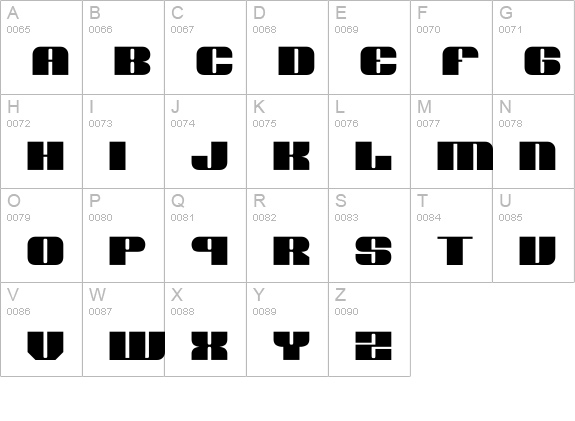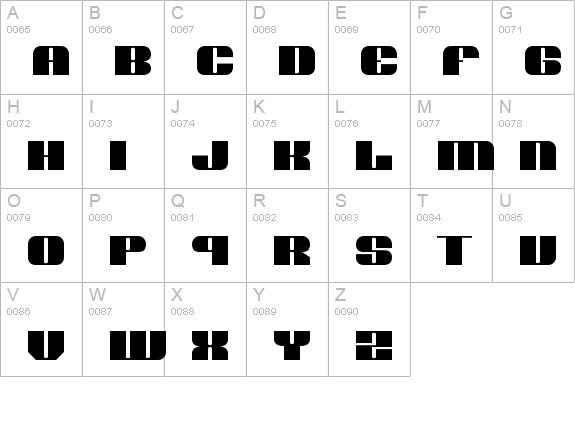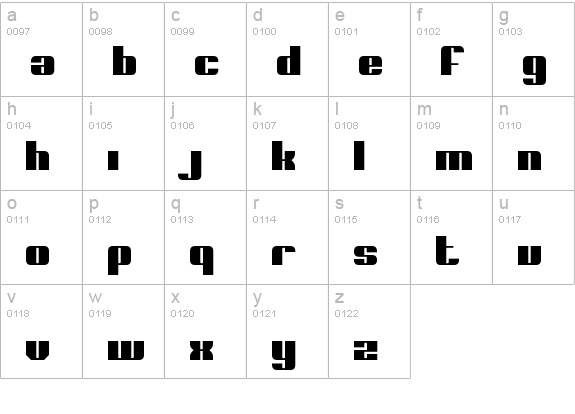
Nolo Contendre font is a modern and stylish typeface that effortlessly blends elegance with simplicity. Its clean lines and subtle curves give it a sophisticated appearance that is perfect for a wide range of design projects. Whether you're creating a professional presentation or designing eye-catching marketing materials, Nolo Contendre font will add a touch of class to your work. This versatile font is available for free download at FontsMarket.com, making it easily accessible to designers and creatives looking to elevate their projects. With its timeless aesthetic and easy readability, Nolo Contendre font is sure to become a go-to choice for all your typography needs. Add a touch of sophistication to your designs with this beautiful and freely available font today.